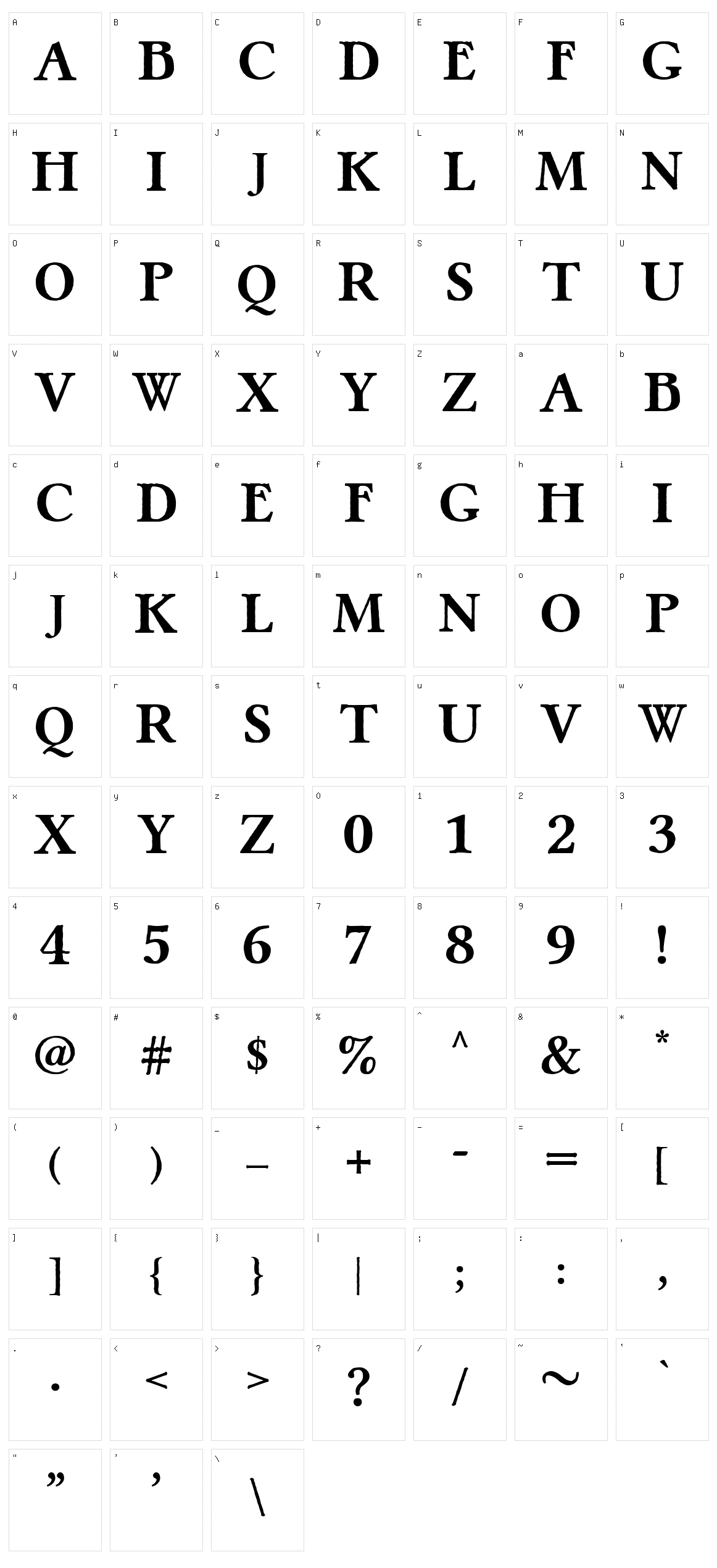
Pretzel Font
The Pretzel font is a rough-edged font based on a modified version of Linux Libertine Bold. Like all other JLH Fonts, this font is in the public domain, and it comes in TrueType and OpenType formats. It contains upper-case and lower-case letters, old-style figures, numbers, some punctuation characters and some mathematical symbols.